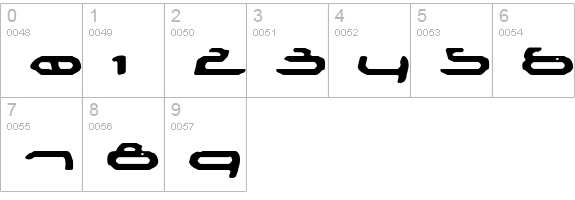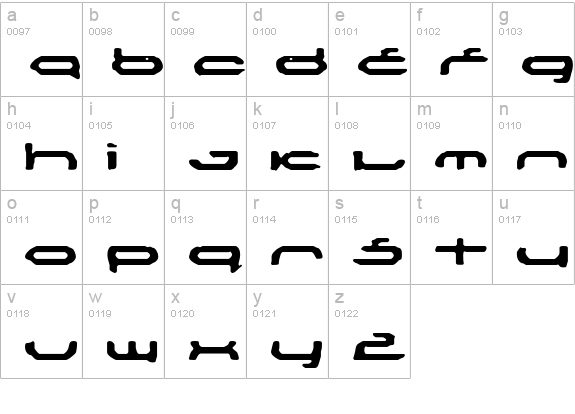
Mechoba Normal is the standard, neutral variant in the Mechoba typeface family \xE2\x80\x94 well suited to general body text, paragraphs, and standard typographic work.
Mechoba Normal font is a modern and sleek typeface that strikes the perfect balance between professionalism and creativity. With its clean lines and bold letterforms, this font is versatile and suitable for a wide range of design projects. Whether you're working on a logo, poster, website, or any other creative endeavor, Mechoba Normal font will add a touch of sophistication and style. Best of all, Mechoba Normal font is available for free download at FontsMarket.com. This means you can easily access this high-quality font without breaking the bank. Don't miss out on the opportunity to enhance your designs with Mechoba Normal font today!